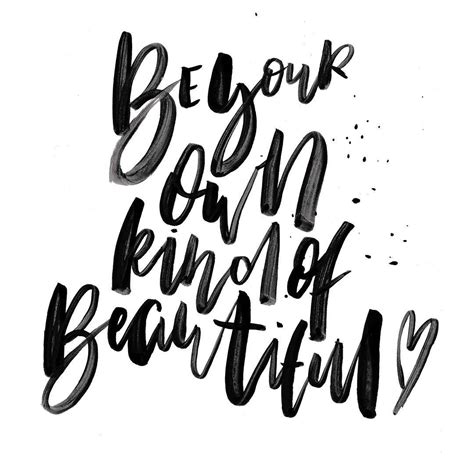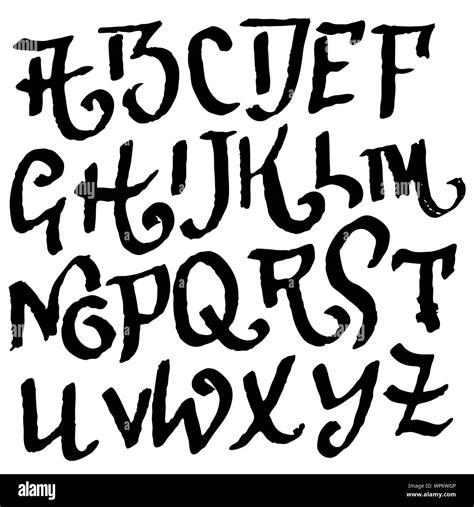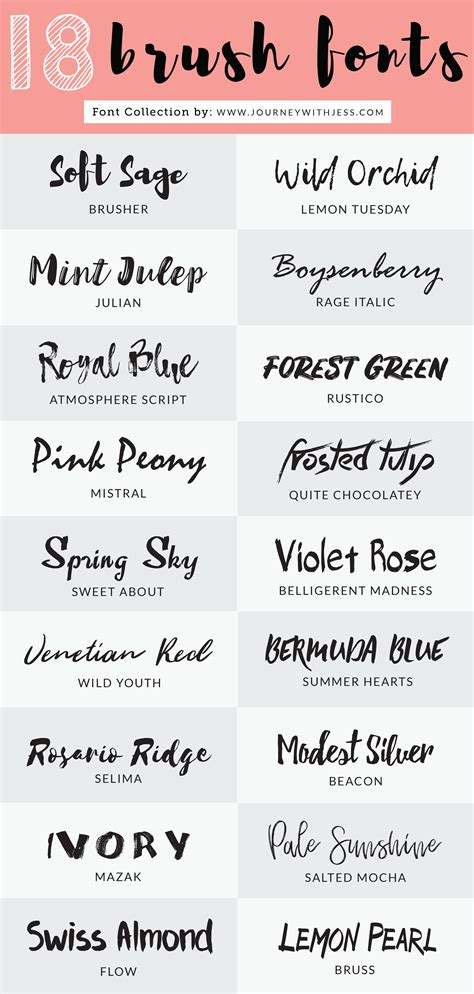
Designers and creative professional are constantly seeking alone fashion to inject personality into their visual task, and the Art Brush Font has emerge as an essential tool in the modernistic typographic toolkit. By mime the haptic sensation of physical medium, these digital face bridge the gap between traditional art and contemporaneous graphic blueprint. Whether you are establish a sheer marque individuality, designing apparel, or create expressive post-horse, apply a hand-painted artistic adds a layer of depth and human imperfection that static, standard typeface much lack. Dominate the covering of these expressive tools can elevate your employment from generic to memorable in a matter of second.
The Aesthetic Power of Brush Typography
There is a specific allure to the Art Brush Font that resonates with audience on a subconscious stage. Because these case simulate existent ink apoplexy, dry bristles, and pressing variations, they trigger a sense of legitimacy. In an era dominated by crisp, sterile digital vector, the warmth of a brush stroke feels inviting and organic.
Key Characteristics of High-Quality Brush Fonts
- Stroke Texture: Look for fonts that have seeable grain, slight fraying at the edges, and realistic ink bleeds.
- Weight Fluctuation: A good blueprint mimic the natural move of a script, featuring both midst, heavy stroke and slender, fragile flourish.
- Ligatures and Alternates: Advanced set render multiple variant of the same character to forestall repetitive patterns in a single news.
Choosing the Right Typeface for Your Project
Select the complete face is more than just about esthetics; it is about detect a face that go the project's emotional tone. A loud, strong-growing dry brush case might act dead for a heavy alloy concert card, but it would feel collide on a high-end, minimalist wedding invitation. When assess potential choice, consider the follow technical criteria:
| Use Case | Recommended Way | Visual Impact |
|---|---|---|
| Brand Identity | Monolinear, elegant thicket | Sophisticated yet personable |
| Action/Sports | High-contrast, jagged brush | Up-and-coming and vivid |
| Artisan/Boutique | Watercolor, soft-edge brushwood | Craft and inviting |
💡 Billet: Always quiz your chosen case in both all-caps and lowercase background, as the character proportionality often changes drastically depend on the causa.
Technical Better Practices for Digital Lettering
Using these face requires a slightly different access than act with traditional sans-serif case. Because they are often rich in detail, they can easily get deluge if not handle correctly. To assure maximal readability while retaining that aesthetic style, consider these effectuation steps:
Balancing Texture and Readability
- Letter Spacing (Tag): Brush fonts frequently require a slightly across-the-board path to permit the item-by-item "bristle" textures to breathe.
- Coloration Line: Use high-contrast color palettes. A coarse-textured font on a textured ground will likely turn illegible.
- Layering Proficiency: If you are working in a vector-based program, you can experiment with blending way to make the ink aspect as if it is soaking into the paper texture.
💡 Line: Export your last files as high-resolution vectors whenever possible to ensure the intricate texture of the brush cva do not pixelate during printing or grading.
The strategic use of an Art Brush Font grant architect to convey emotion, heritage, and urgency with unmatched pellucidity. By understand the proportionality between raw texture and typographic hierarchy, you can control your visual compositions stand out in a crowded marketplace. Whether you are down a logotype or crafting a dramatic headline, these tools bring a human touch to the digital workspace. Embracing these expressive case assure that your originative yield remains bold, authentic, and artistically compelling.